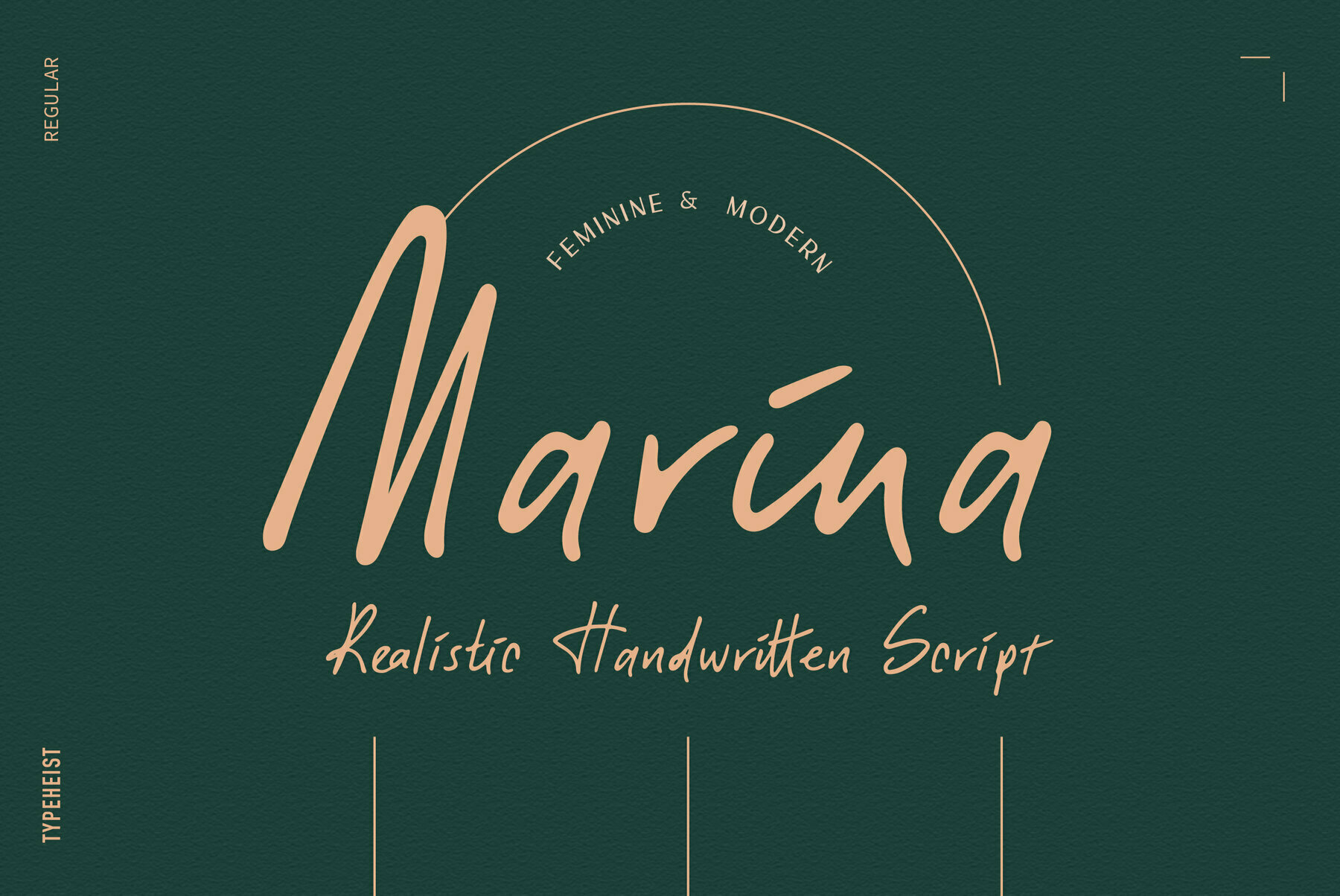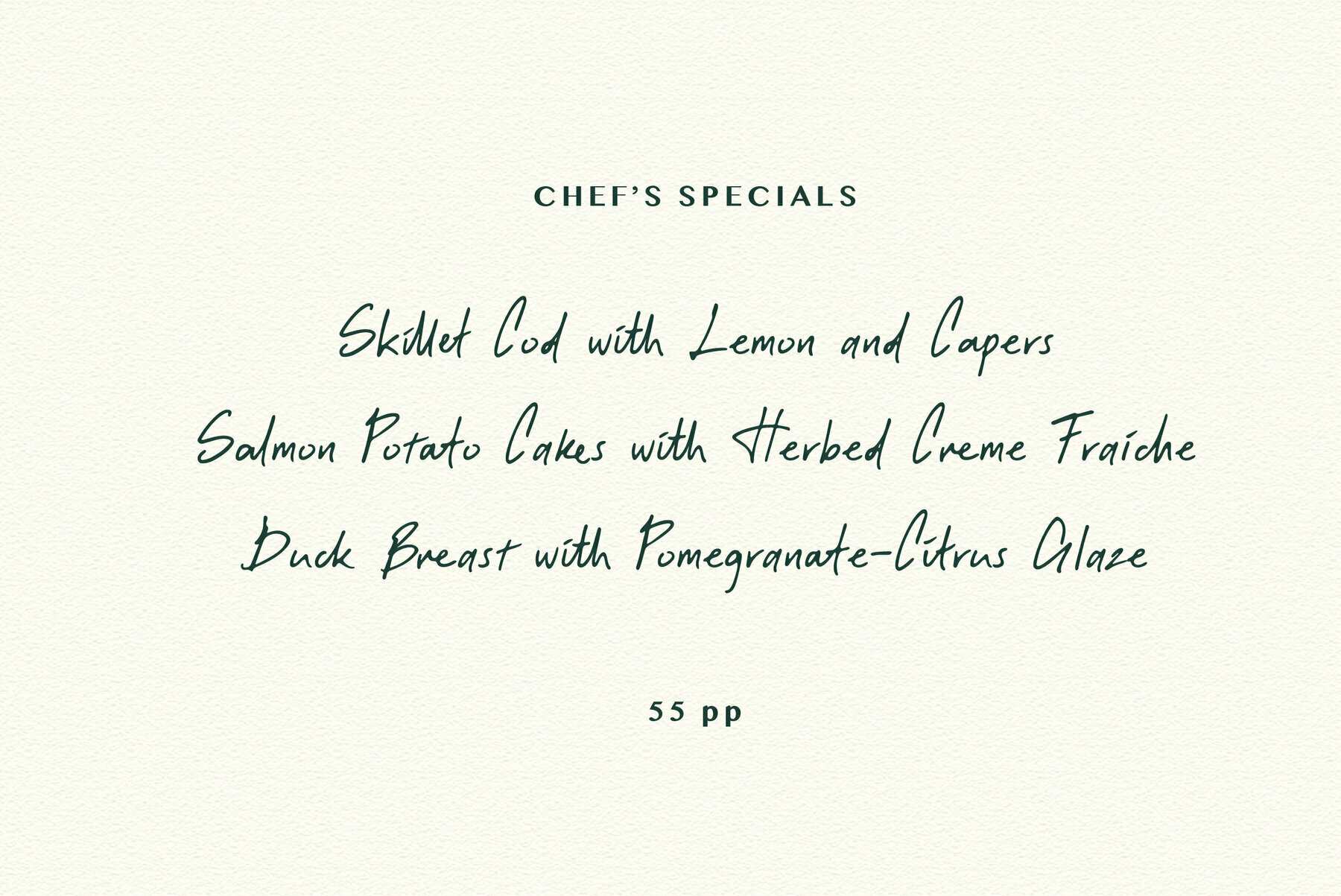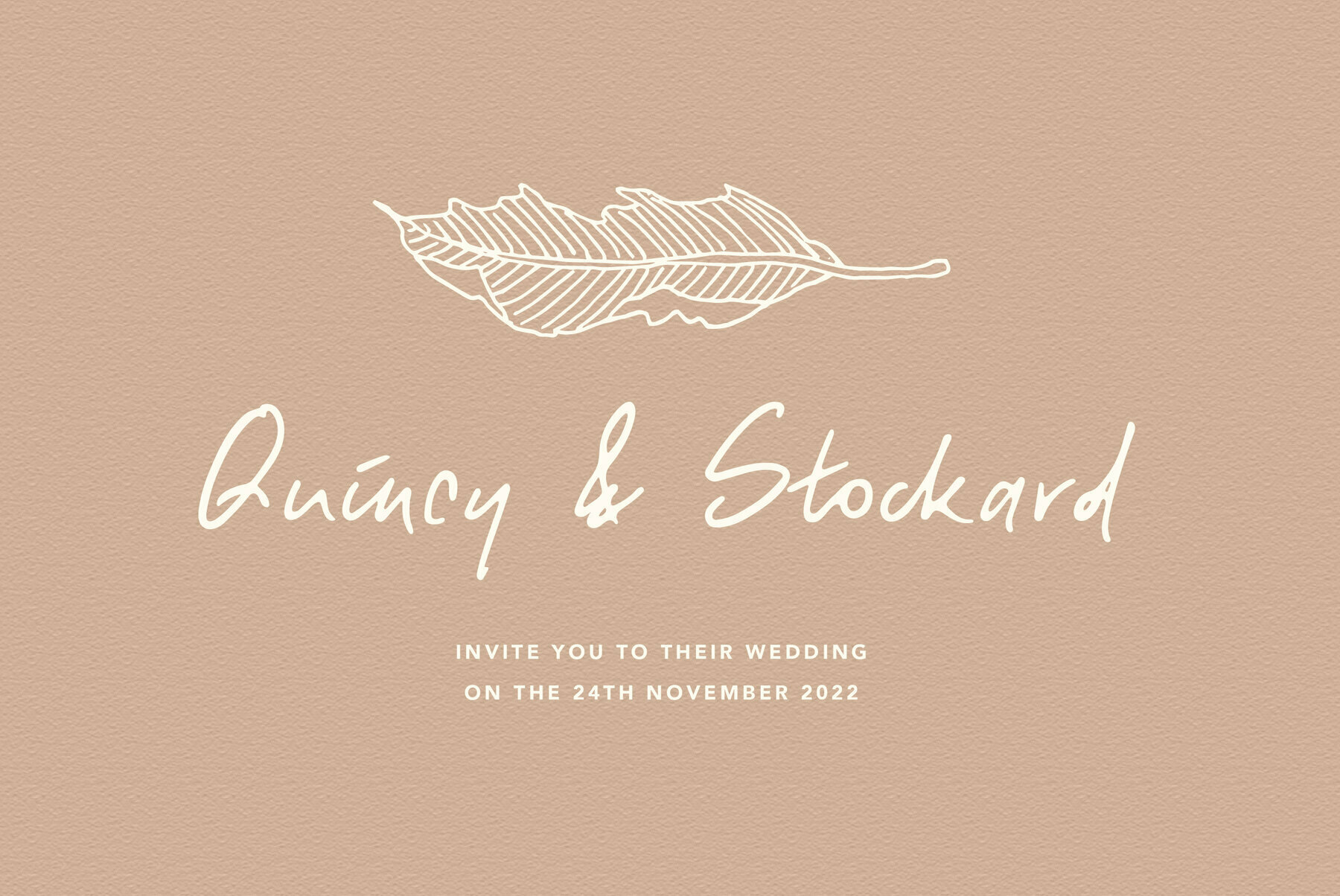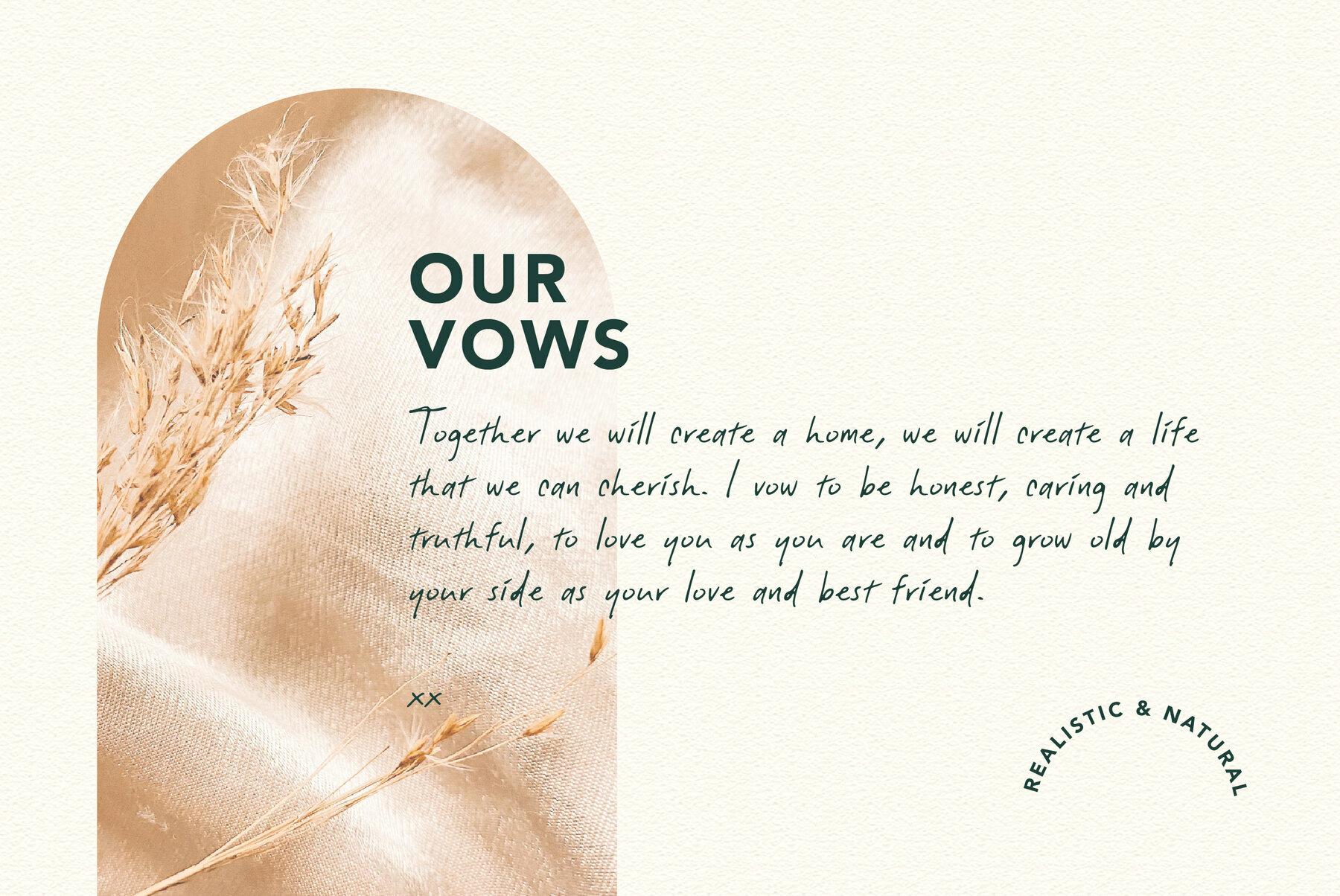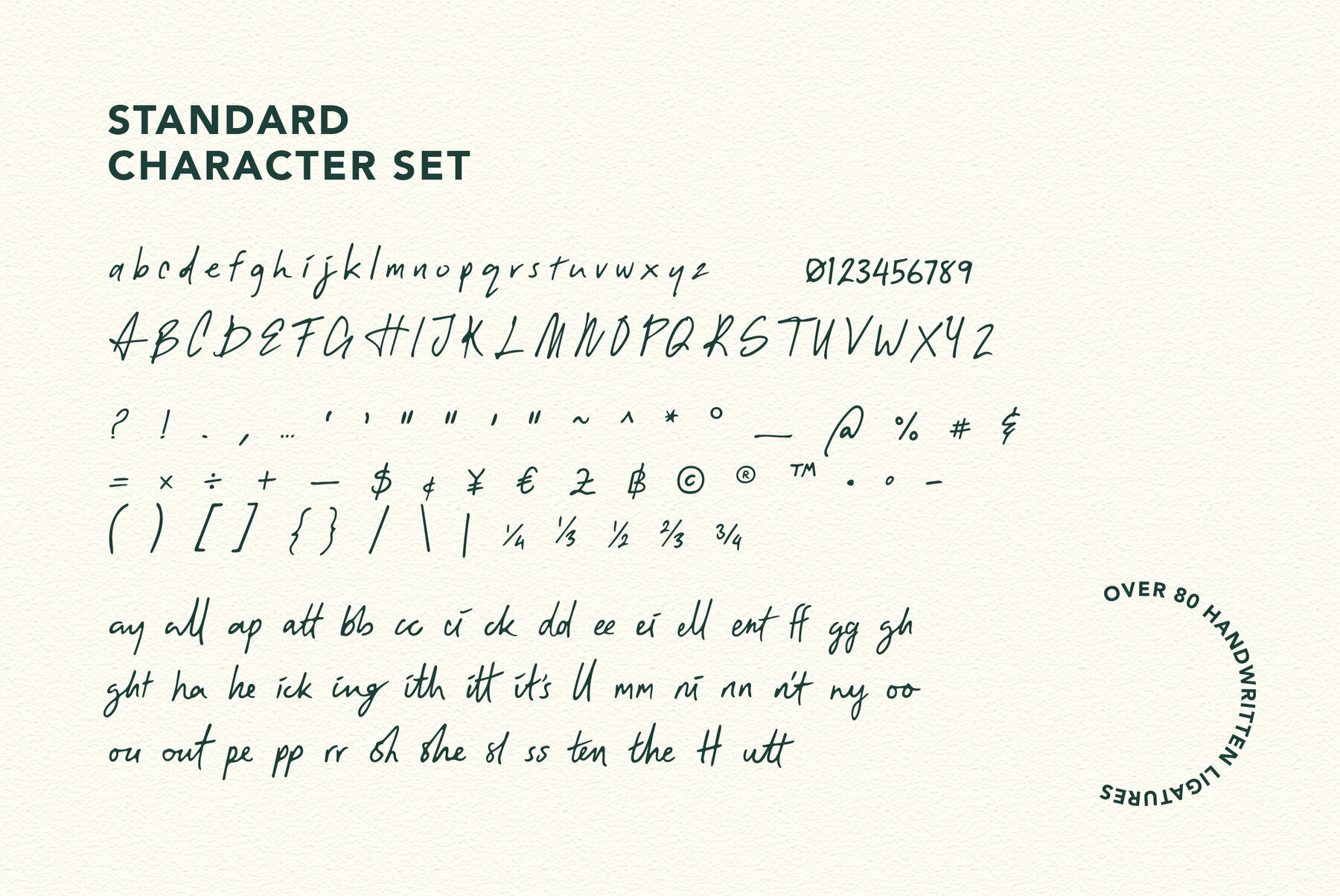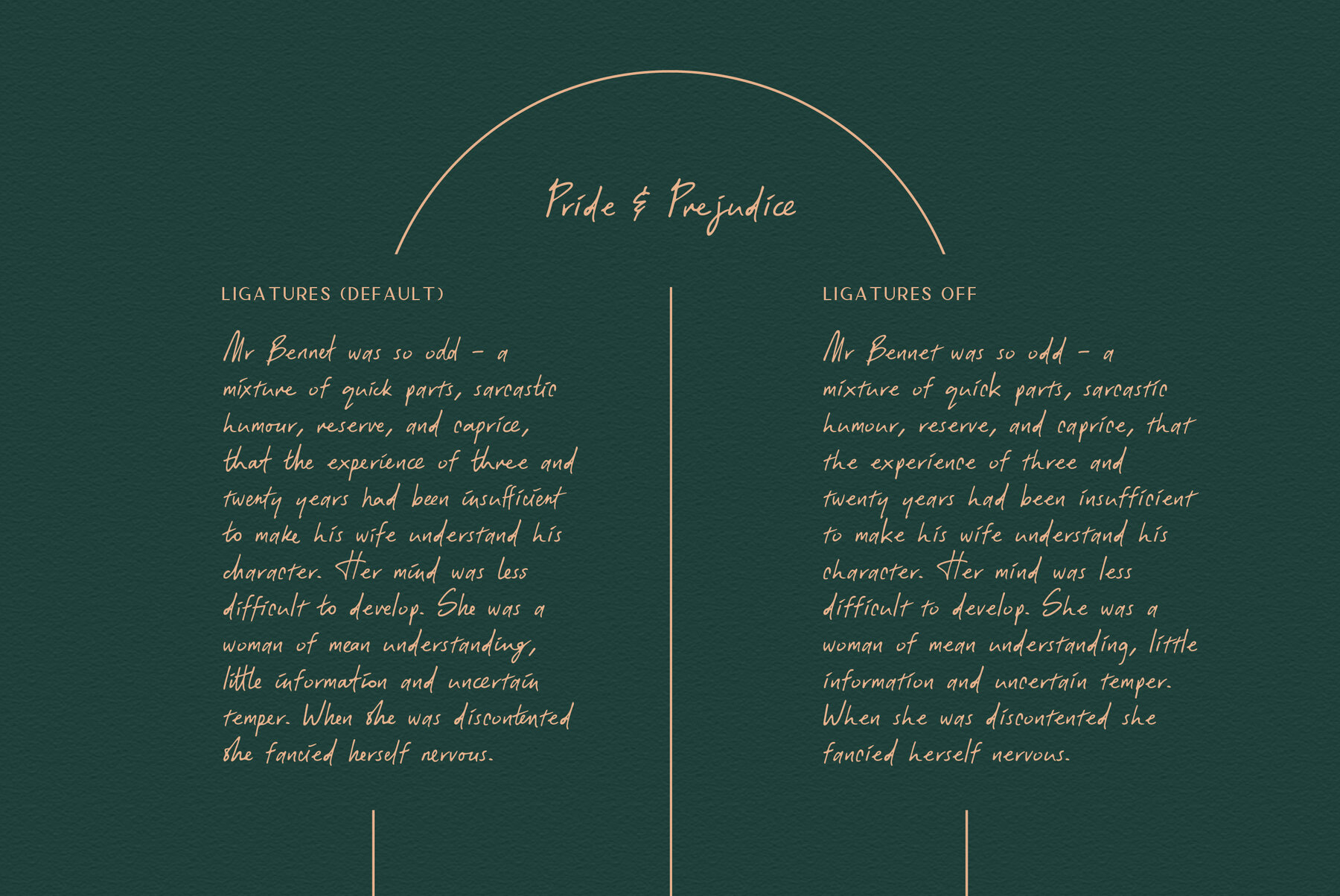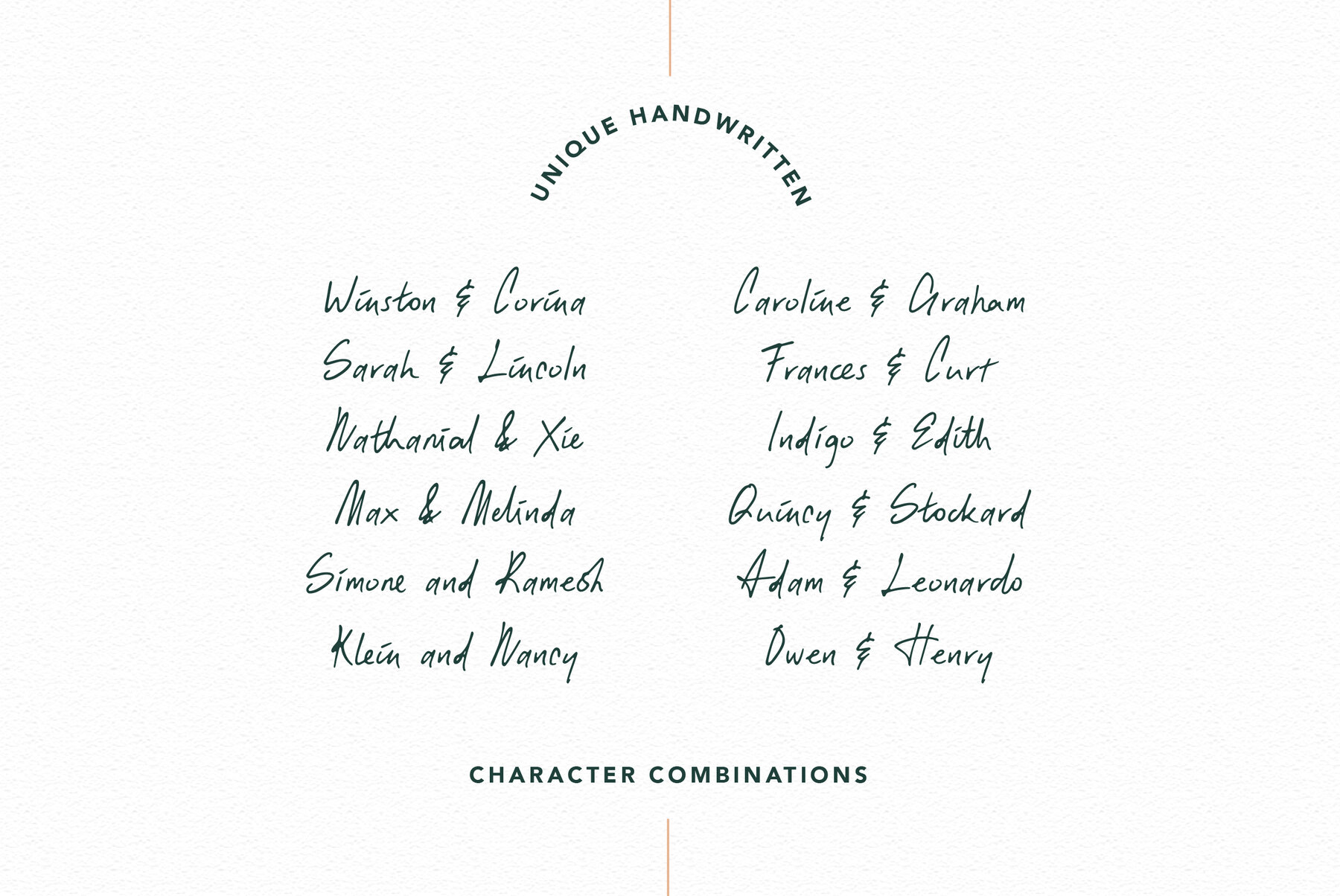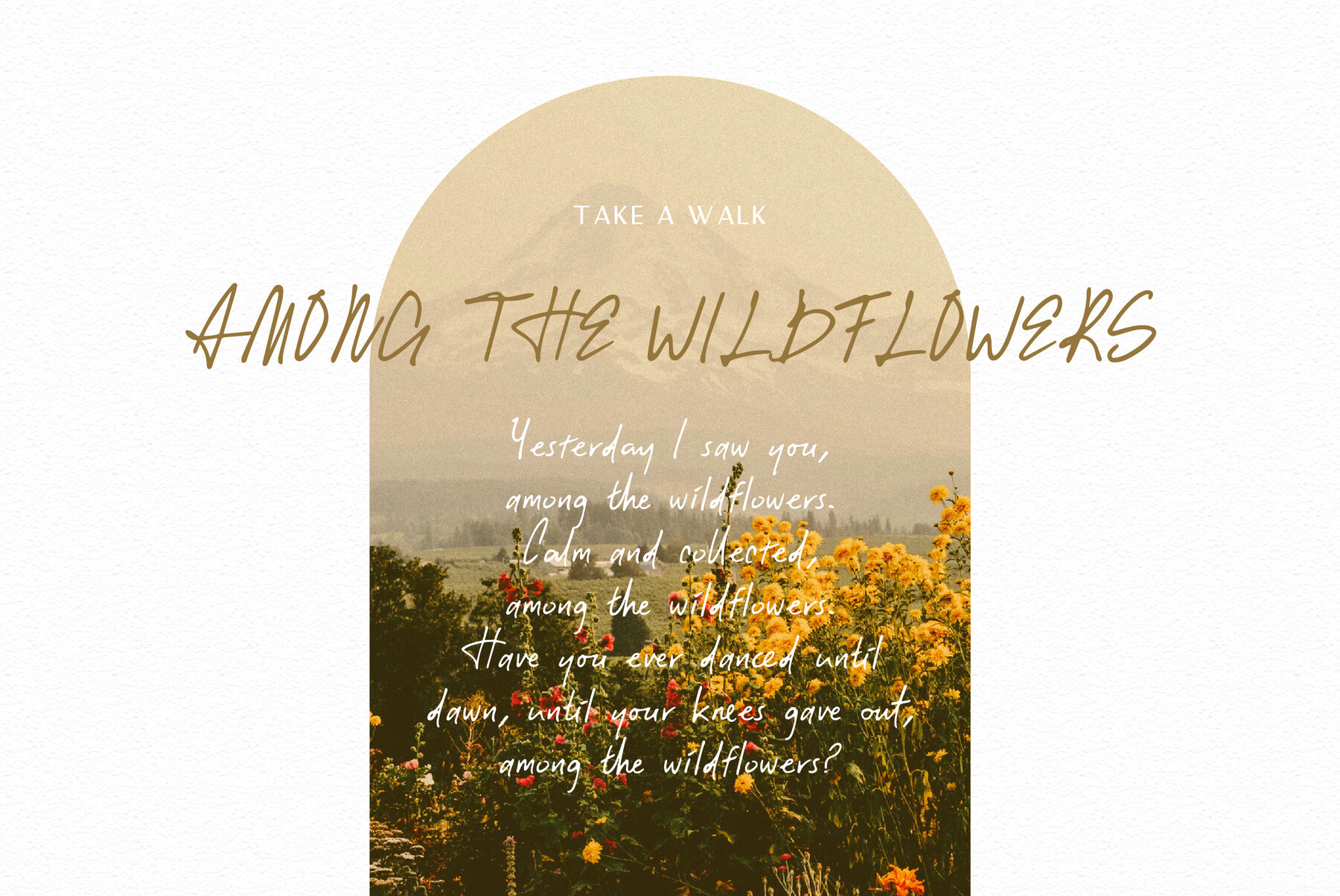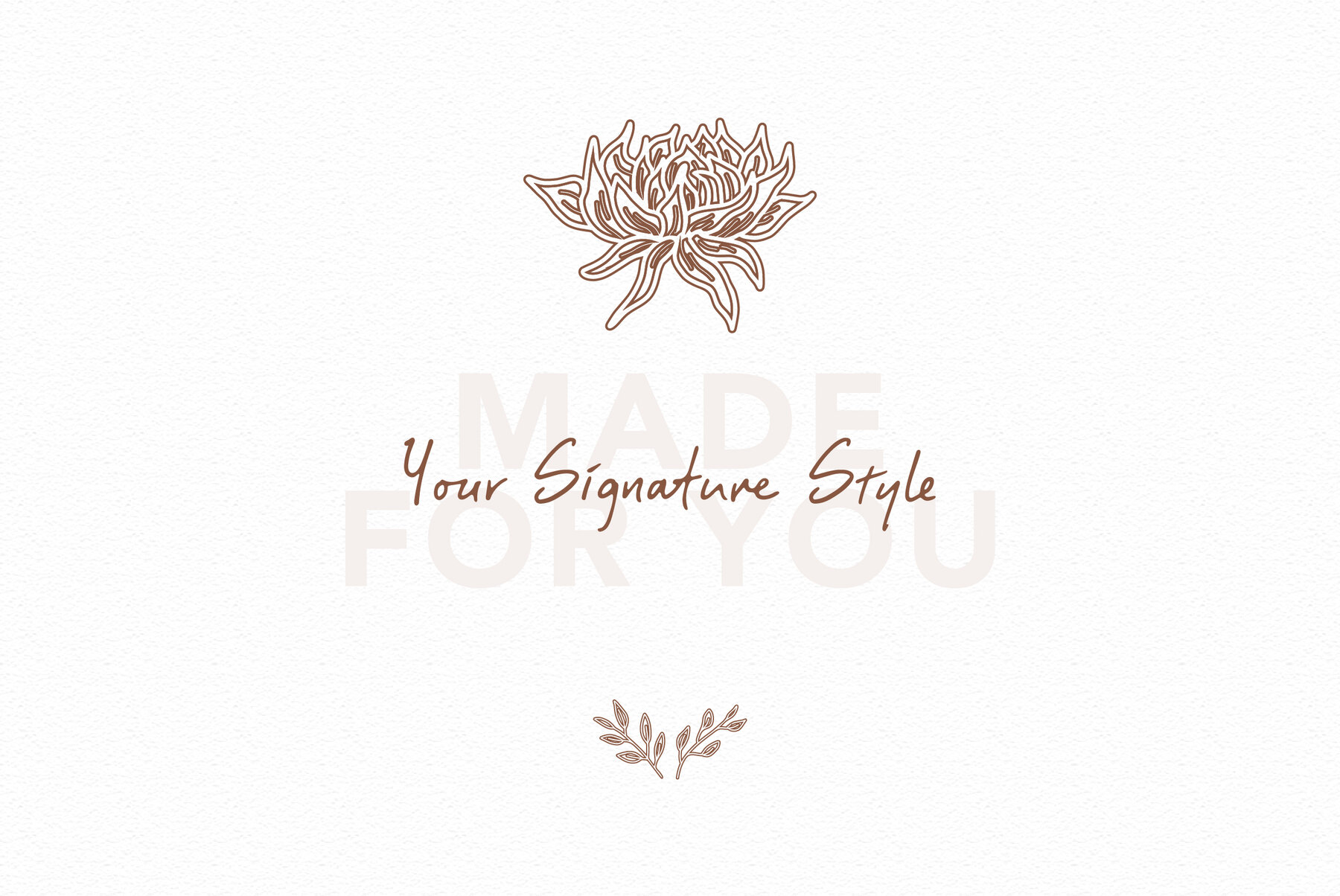
Marina Script Font
Marina Script Regular
A feminine, yet modern, handwritten font - perfect for adding that warm touch. Marina is realistic and unique. It looks like real handwriting, because it is... Written originally with a fineliner pen, Marina exhibits that personal touch. Over 80 ligatures will transform your writing from standard text into a beautiful, handwritten script.